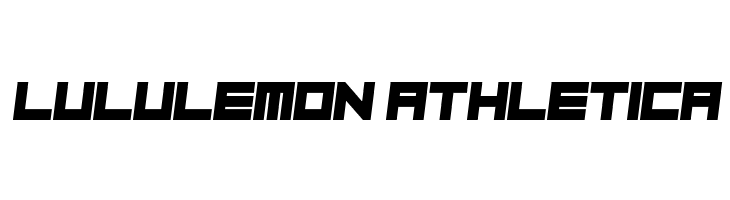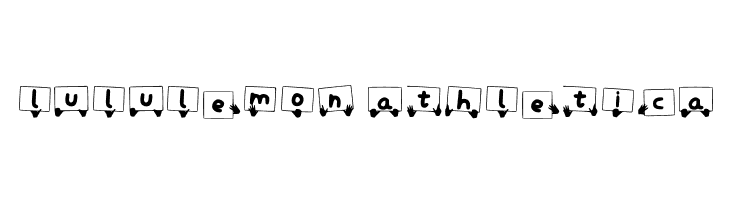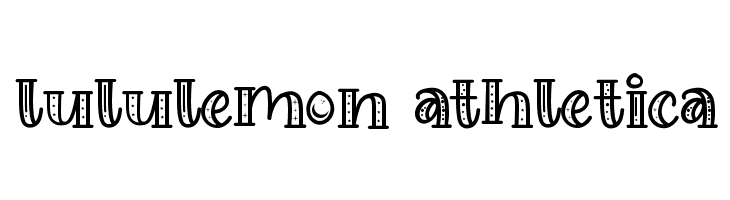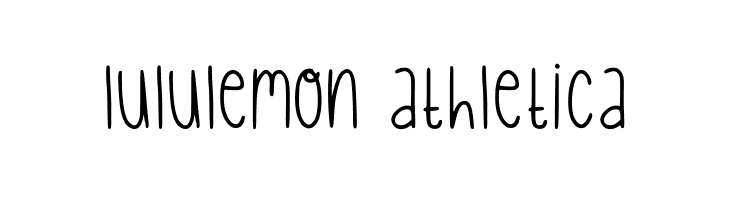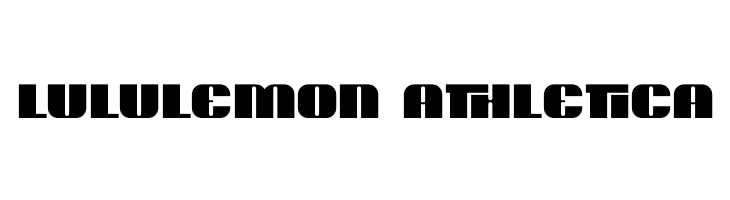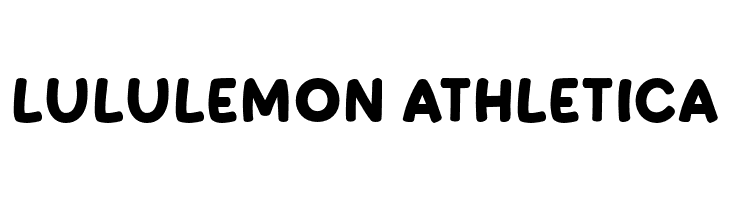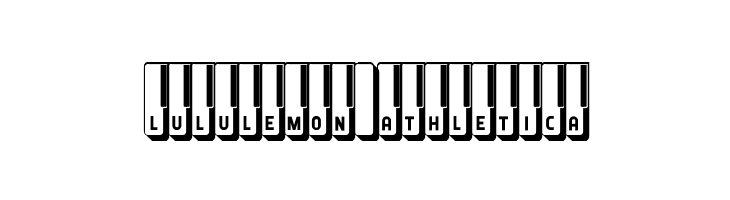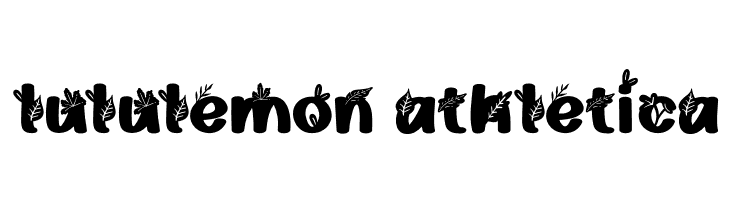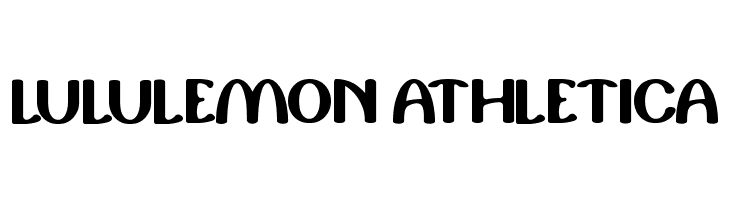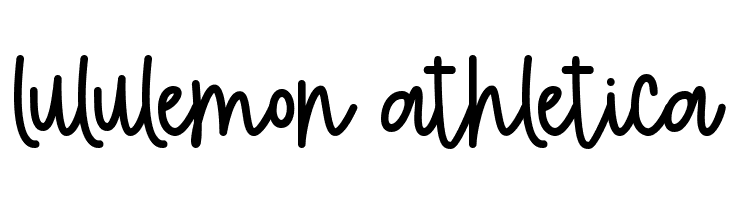
A modern, dynamic font with parallel line patterns creating a sense of movement.
A playful, bold handwritten font with flowing, connected letters.
A playful, handwritten font with a whimsical and friendly style.
A bold, modern display typeface with thick, blocky letters and high contrast.
A playful, leaf-themed decorative font with bold, artistic characters.
A bold, futuristic font with sharp angles and geometric shapes.
A modern, geometric sans-serif font with a clean and professional look.
A playful font with characters held by cartoonish hands and feet, perfect for fun projects.
A playful, decorative font with bold, patterned letters.
A playful, rounded font with bold, smooth curves and a friendly appearance.